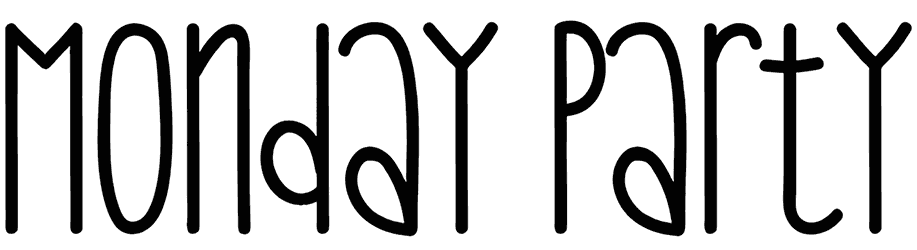
Monday Party Font
Meet Monday Party, a modern and minimal playful font with a natural and casual form. This cute item with a slim letter face can be an apt illustration for a lot of creative designs, such as posters, covers, logos, apparel, and so forth. It doesn’t have all of the lowercase letters, but can still add a distinct and whimsical mood to your words.
Monday Party is a sweet, simple lettered and adaptable handwritten font. Its cute and full of life style makes this font a wonderful choice for brightening up your designs.